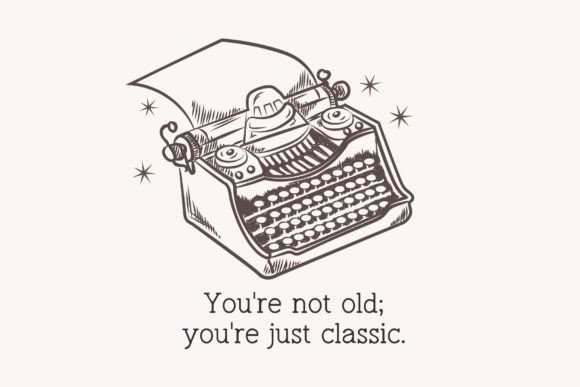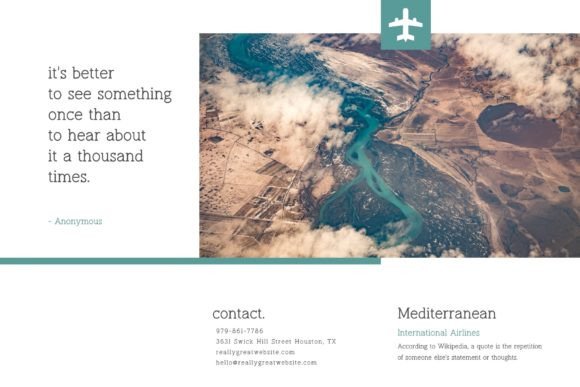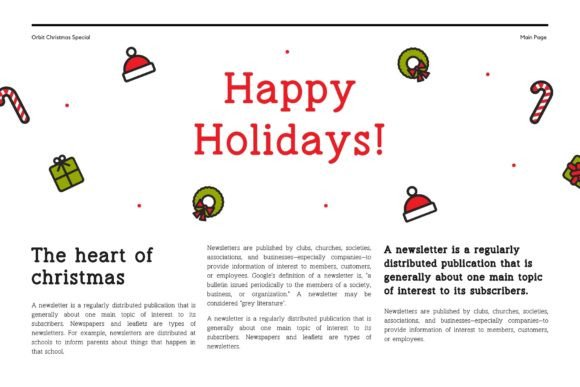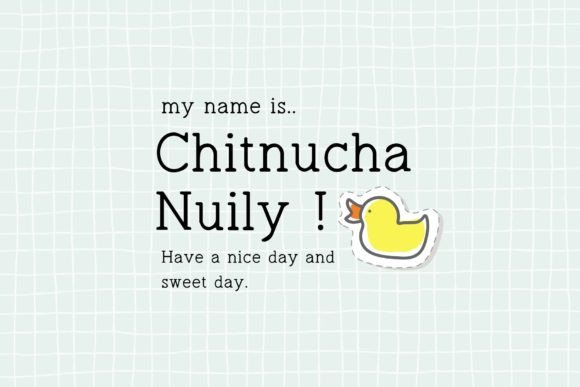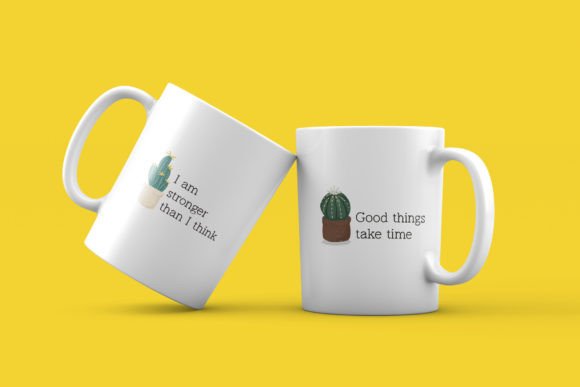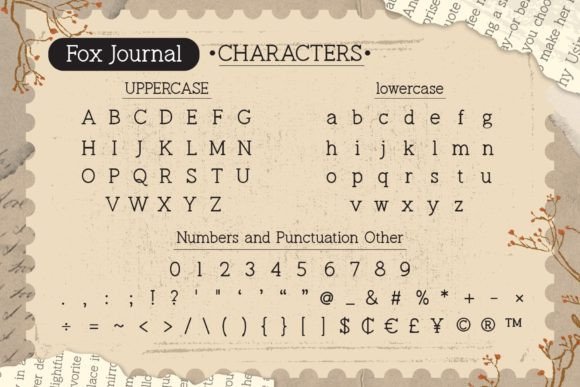
Introducing Fox Journal Font: The Perfect Choice for Creative Projects
Are you a designer, crafter, or creative enthusiast looking for a font that adds a touch of playfulness and elegance to your projects? Look no further than Fox Journal Font! This adorable serif typeface is designed to bring a sense of casual sophistication to a wide range of creative endeavors. In this article, we’ll dive into the world of Fox Journal Font, exploring its features, benefits, and uses.
What is Fox Journal Font?
Fox Journal Font is a cute, simple, and clean serif typeface that exudes a sense of playfulness and charm. Its casual and approachable design makes it perfect for projects that require a personal touch. Whether you’re creating inspirational quotes, handwritten notes, captivating headings, engaging blogs, striking logos, or inviting invitations, Fox Journal Font is the ideal choice.
Key Features of Fox Journal Font
- Cute and Playful Design: Fox Journal Font boasts a unique and endearing design that adds a touch of whimsy to any project.
- Serif Typeface: The font features a classic serif design, which provides a sense of elegance and sophistication.
- Clean and Simple: Despite its playful nature, Fox Journal Font remains clean and simple, making it easy to read and versatile for various applications.
- Casual and Approachable: The font’s casual design makes it perfect for projects that require a friendly and approachable tone.
Benefits of Using Fox Journal Font
So, why choose Fox Journal Font for your creative projects? Here are just a few benefits of using this delightful font:
- Adds a Personal Touch: Fox Journal Font brings a sense of personality and charm to your projects, making them stand out from the crowd.
- Versatile: The font’s clean and simple design makes it suitable for a wide range of applications, from digital projects to print materials.
- Easy to Read: Despite its playful nature, Fox Journal Font remains easy to read, making it perfect for body text and captions.
- Customizable: The font’s simplicity makes it easy to customize and pair with other fonts to create a unique look.
Use Cases for Fox Journal Font
Fox Journal Font is an incredibly versatile font that can be used in a variety of creative projects, including:
- Inspirational Quotes: Add a touch of elegance and playfulness to your inspirational quotes with Fox Journal Font.
- Handwritten Notes: Create personalized handwritten notes that feel like they were written with love.
- Captivating Headings: Use Fox Journal Font to create captivating headings that grab attention and draw readers in.
- Engaging Blogs: Add a touch of personality to your blog posts with Fox Journal Font.
- Striking Logos: Create a memorable logo that stands out from the crowd with Fox Journal Font.
- Inviting Invitations: Design beautiful and inviting invitations that set the tone for any event or celebration.
In conclusion, Fox Journal Font is a delightful serif typeface that adds a touch of playfulness and elegance to any creative project. Its cute and simple design makes it perfect for a wide range of applications, from inspirational quotes to logos and invitations. With its versatility, ease of use, and customizability, Fox Journal Font is an excellent choice for designers, crafters, and creative enthusiasts looking to add a personal touch to their projects.